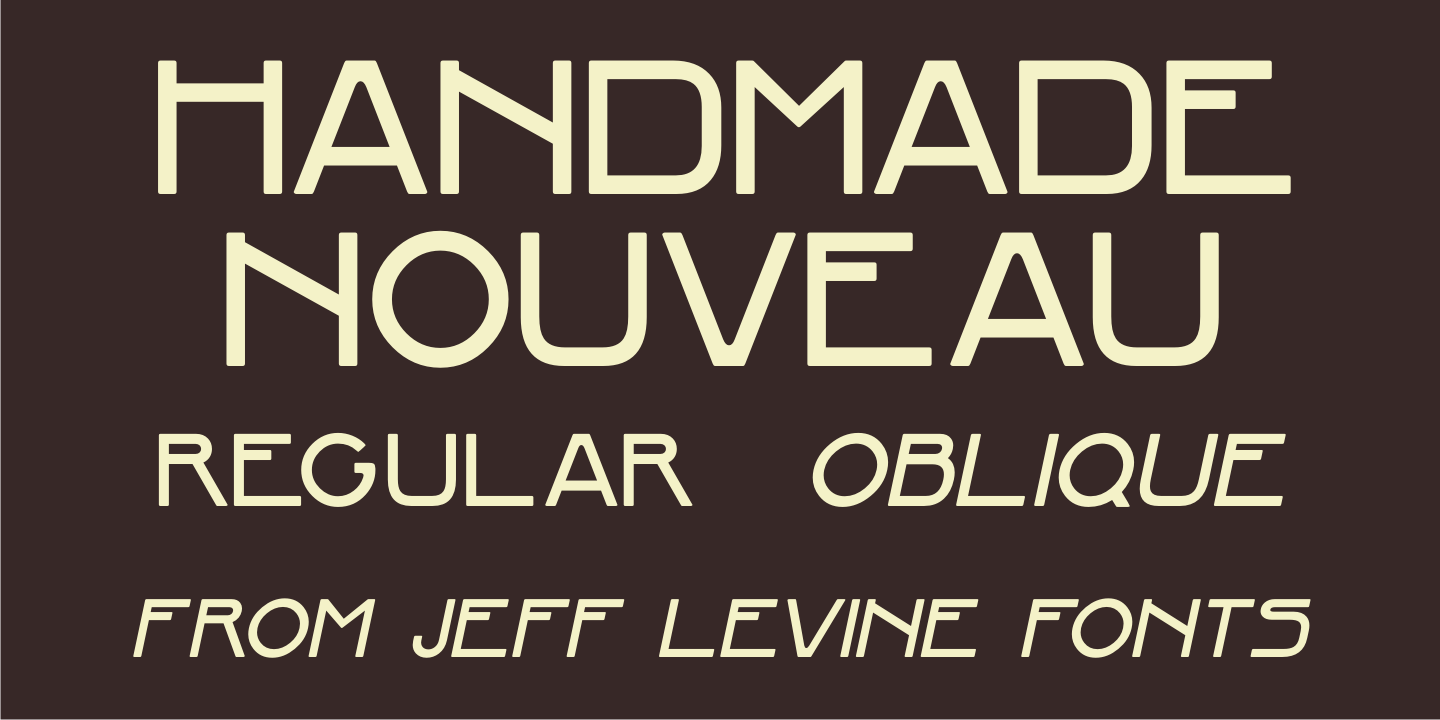
Handmade Nouveau
An example of Art Nouveau lettering (complete with its unusual characters and varying shape widths) was found in a sample from the vintage publication "Modeles de Lettres Artistiques" ("Models of Artistic Letters").
This classic design is now available digitally as Handmade Nouveau JNL, in both regular and oblique versions.